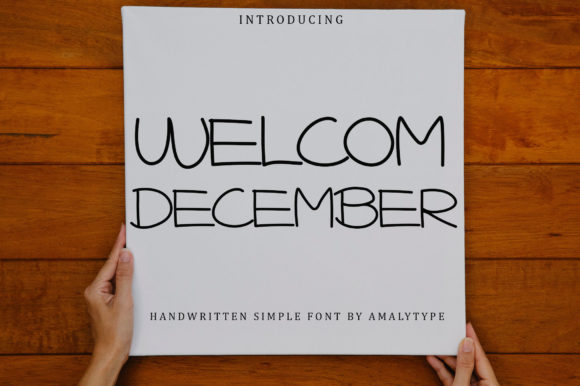
Immerse yourself in the enchanting world of Welcome December Font - a script font family that exudes warmth, elegance, and timeless charm. Inspired by the magic of handwritten notes, Welcome December captures the essence of heartfelt sentiments and personal expressions.
With its delicate strokes, playful ligatures, and a touch of whimsy, Welcome December adds a personal and authentic flair to your creations. Its versatility extends beyond chalkboards and teaching materials; it's perfect for wedding invitations, heartfelt letters, romantic quotes, and designs that demand a touch of handwritten charm.
Picture this: your wedding proposal, meticulously planned and filled with heartfelt emotions. The backdrop is set, the moment is perfect, and the words you choose to express your love deserve a font that matches their significance. Welcome December, with its delicate curves and flowing lines, becomes the perfect载体 for your heartfelt message. It transforms your words into a visual symphony, capturing the essence of your love story and making the moment truly unforgettable.
Welcome December is more than just a font; it's an artistic expression that speaks to the heart. Its unique charm lies in its ability to evoke emotions, create connections, and leave a lasting impression. Whether you're a designer seeking a font that adds a personal touch to your creations or an individual searching for the perfect font to convey your heartfelt sentiments, Welcome December is your answer.
Join the countless storytellers, designers, and artists who have embraced Welcome December's allure. Let its delicate strokes and heartfelt charm elevate your creations and make your words dance with emotion. Welcome December is not just a font; it's an experience that will leave an indelible mark on your designs and the hearts of those who encounter them.